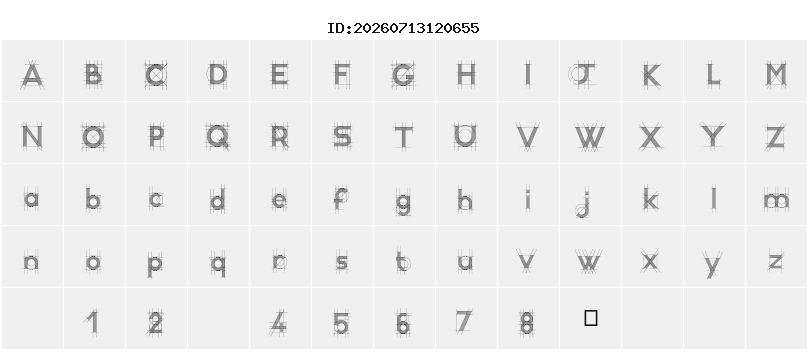
R&C Demo Preview
About R&C Demo.otf
R&C Demo.otf is a modern, elegant sans-serif font designed for ultimate readability and visual harmony. Perfect for branding, headlines, web design, and print materials.